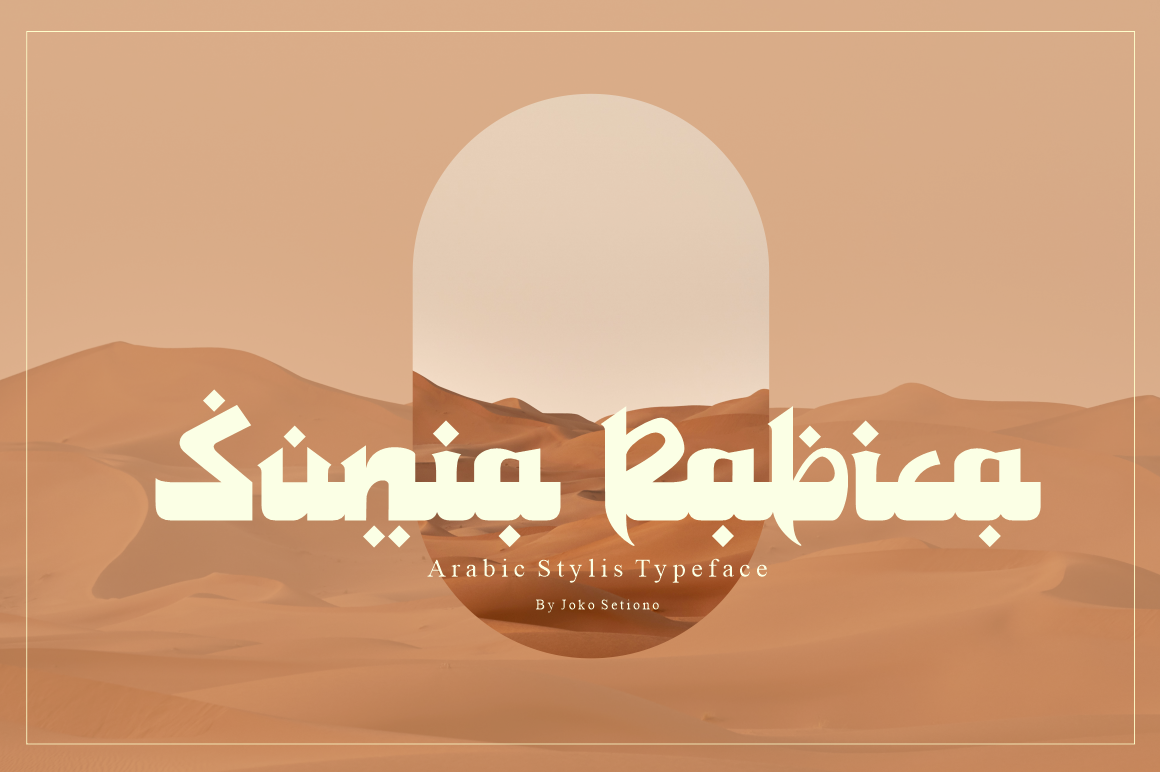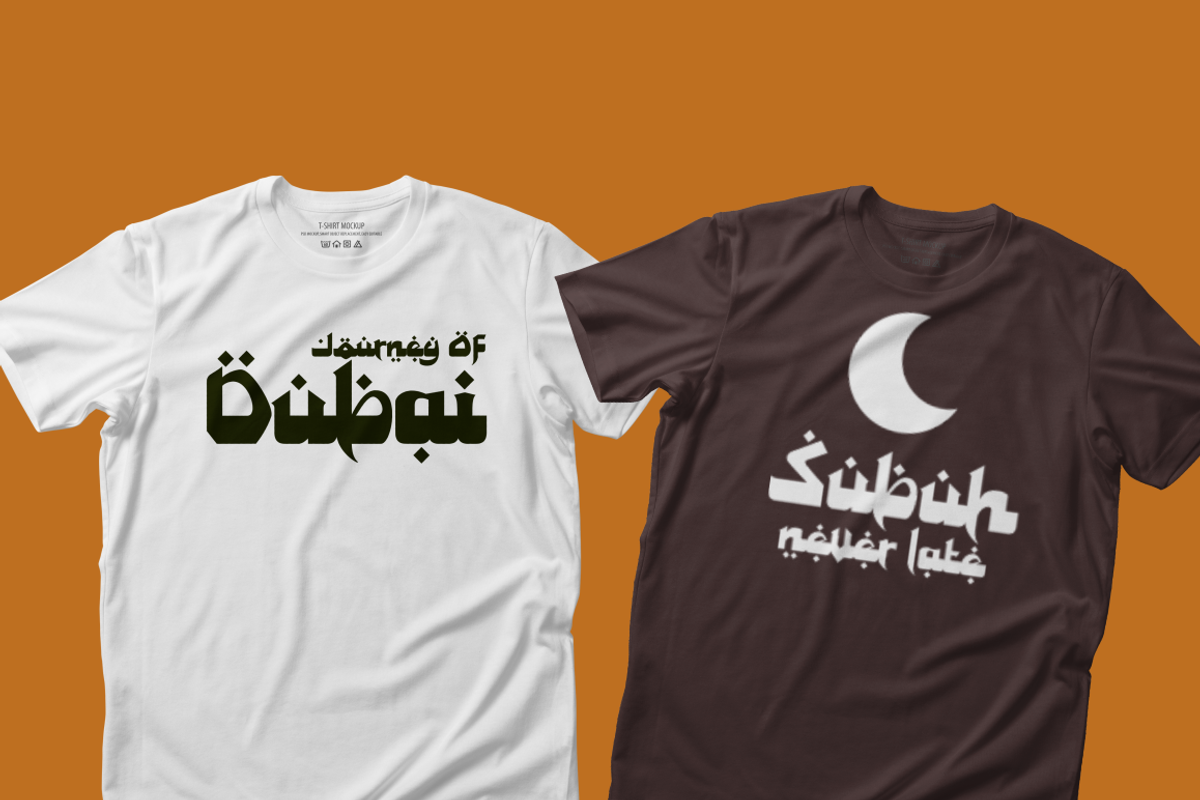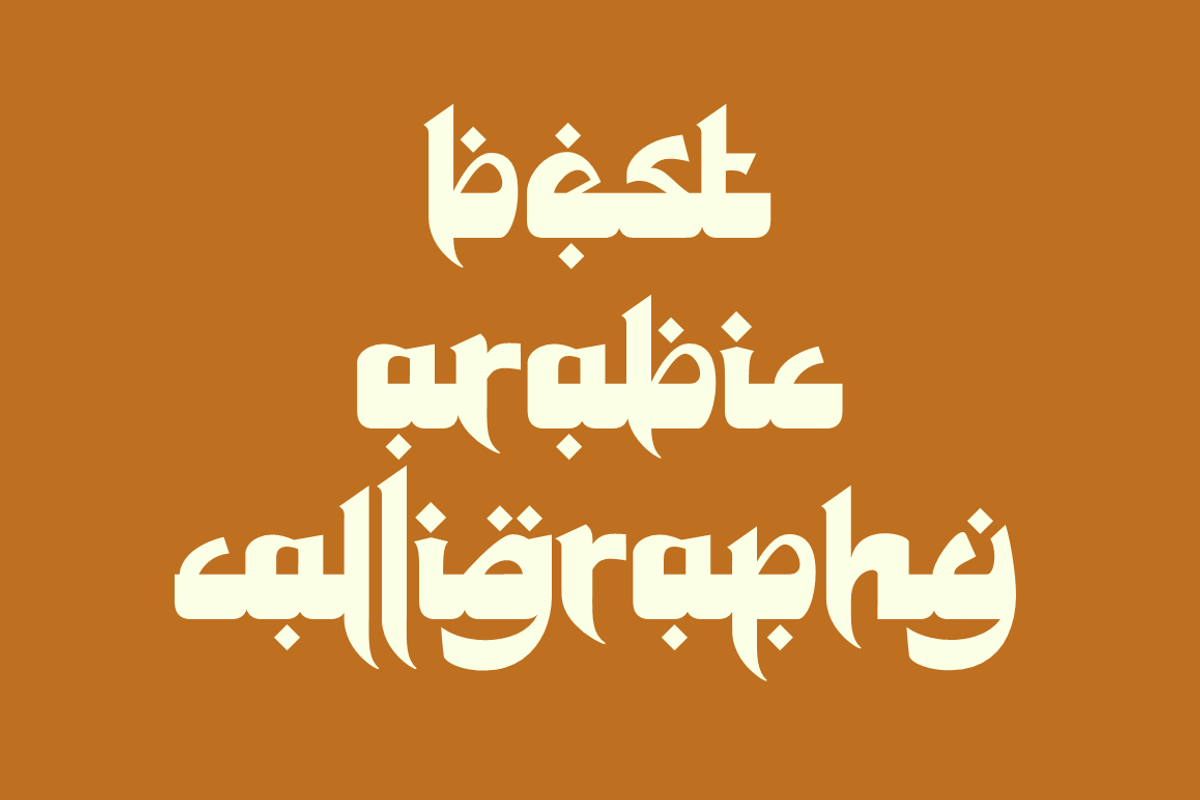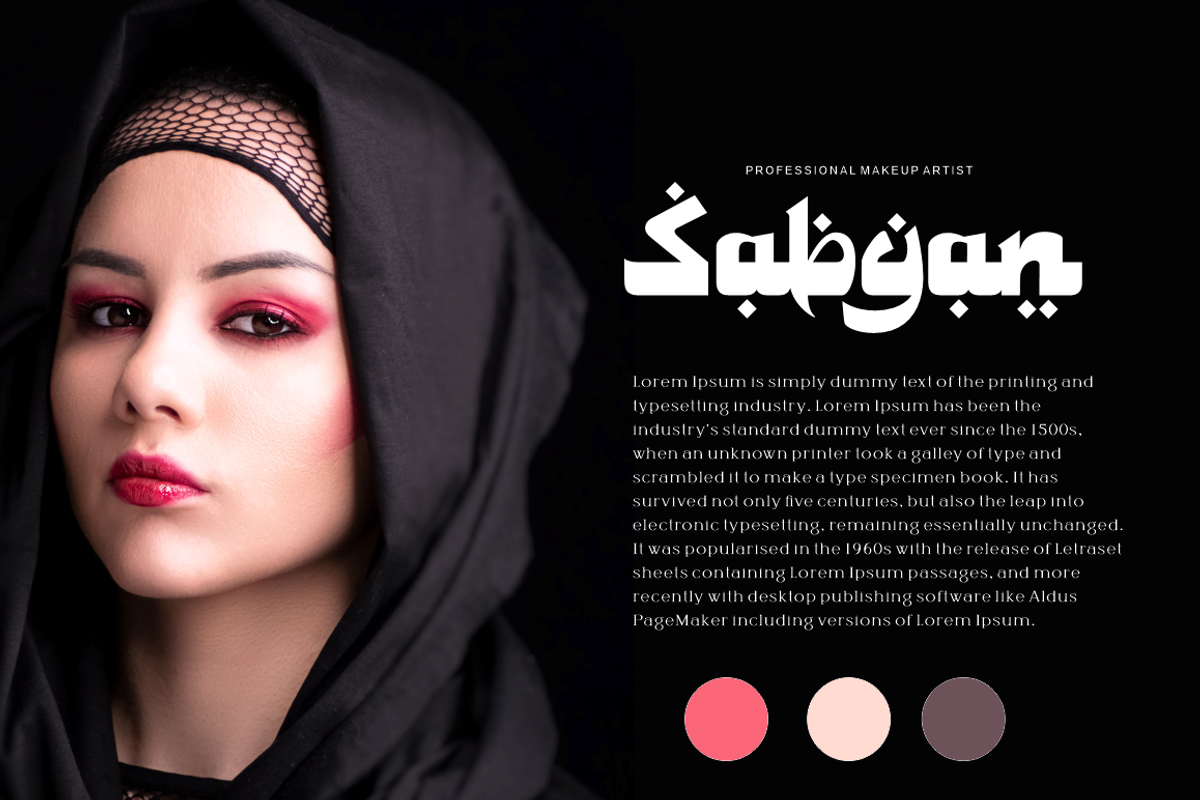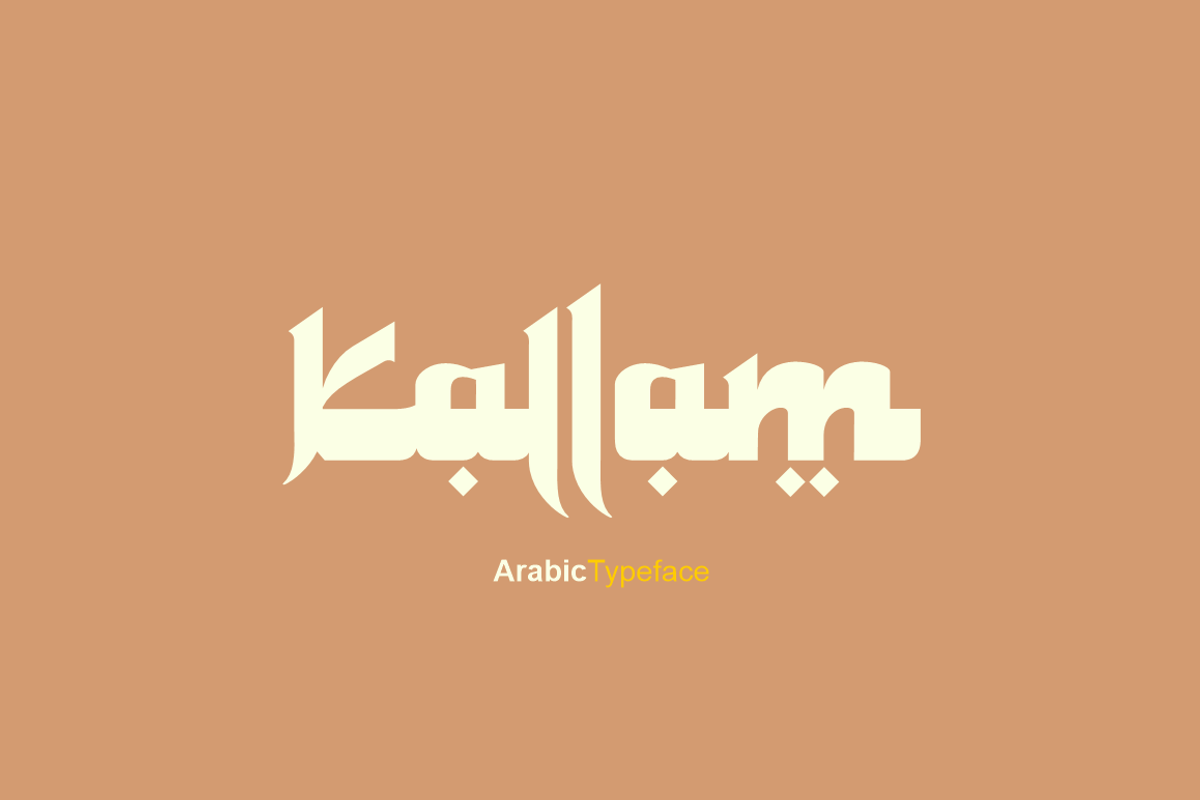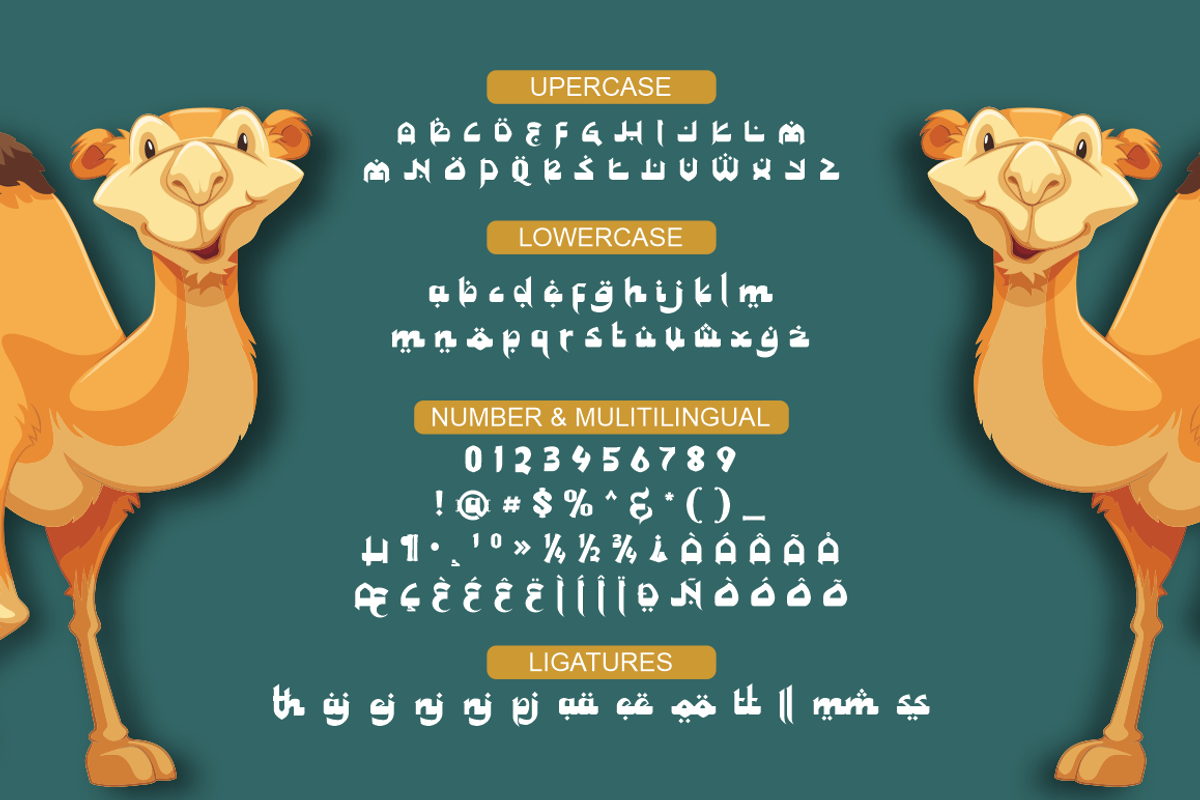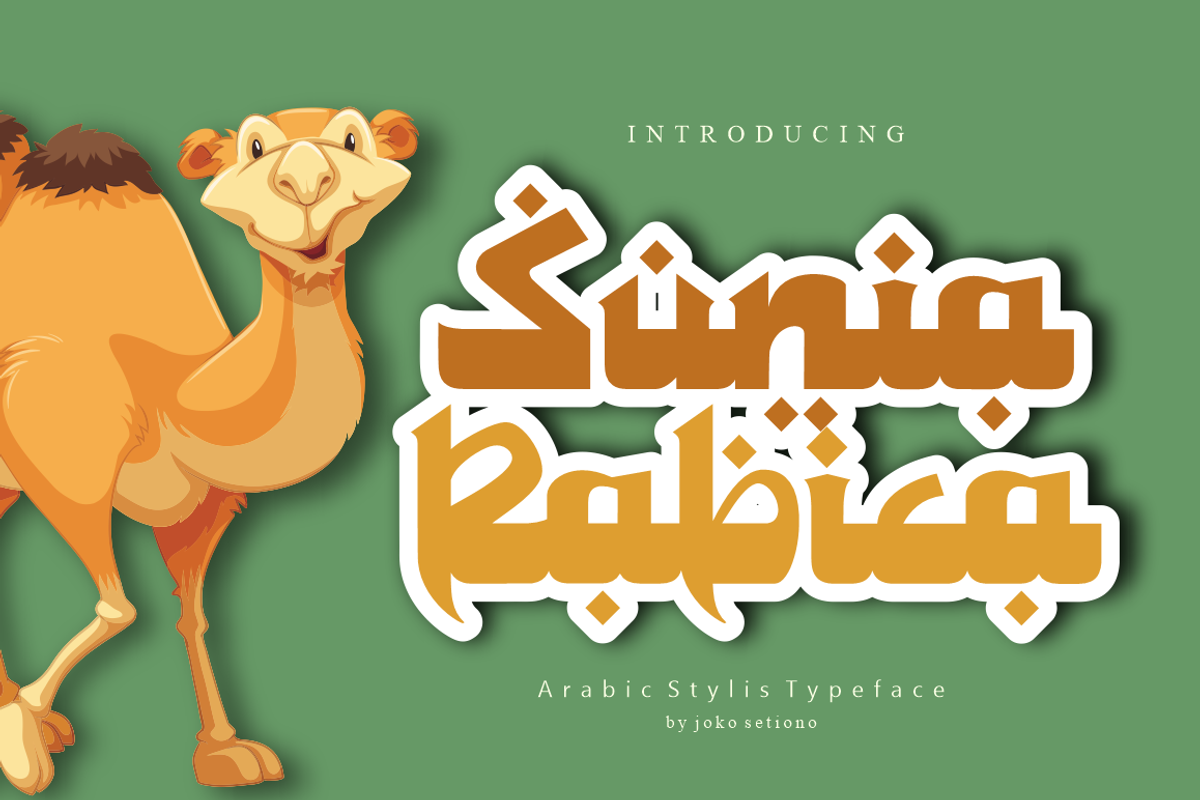
Sunia Rabica - arabic style font
Proud to present Sunia Rabica typeface, a modern and classic typeface that has a unique style & modern Arabic alphabet look. This typeface is perfect for elegant & luxurious logos, book or movie title designs, fashion brands, magazines, clothing, fonts, quotes and more.